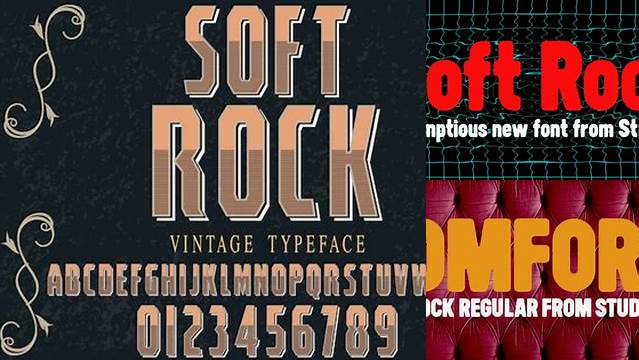
Soft Rock Font: Free Texture Downloads For Designers
Hey guys! Are you on the hunt for that perfect font that screams vintage vibes with a touch of raw, edgy texture? Look no further! Soft rock texture fonts are all the rage right now, blending smooth readability with a gritty, tactile feel. Whether you're designing a poster for a local band, crafting a retro-themed website, or just adding some character to your personal projects, these fonts can really make your work stand out. Plus, who doesn't love free stuff? Let’s dive into the world of soft rock texture fonts and where you can snag them without spending a dime.
1. What Exactly is a Soft Rock Texture Font?
Soft rock texture fonts combine the legibility of classic soft rock-era typography with added textures that give the impression of depth and age. Think of fonts that evoke the spirit of 70s and 80s album covers – smooth curves, rounded edges, but with a twist. The “texture” part comes from distressed effects, grainy overlays, or even simulated hand-drawn imperfections. These elements add visual interest and make the font feel more organic and less sterile. These fonts are versatile and can be used in a variety of design projects, from branding and advertising to web design and print materials. The key is to find a balance between the font's readability and the texture's impact so that the overall design remains clear and engaging. The right soft rock texture font can add a unique and memorable touch to your project, helping it stand out and capture the attention of your target audience. Ultimately, experimenting with different styles and textures will help you find the perfect font to suit your creative vision.
2. Why Choose a Soft Rock Texture Font?
Okay, so why should you even bother with soft rock texture fonts? Well, for starters, they're incredibly versatile. Need a font that feels both modern and vintage? Soft rock textures fonts nail that balance perfectly. They add a touch of nostalgia without feeling dated, making them ideal for projects that aim to evoke a sense of timelessness. Plus, the added texture gives your designs a unique, handcrafted feel, which can be a real game-changer in a world saturated with generic, cookie-cutter fonts. Whether you're working on a retro-themed project or just want to add some character to your designs, these fonts offer a perfect blend of style and substance. The unique texture of these fonts can also help your designs stand out, making them more memorable and engaging for your audience. By choosing a soft rock texture font, you're not just selecting a typeface; you're adding a layer of personality and visual interest to your work. So, if you're looking to elevate your designs and give them a touch of vintage charm, a soft rock texture font might be exactly what you need.
3. Key Characteristics of Soft Rock Fonts
When you are looking for soft rock fonts, there are some key characteristics that you should consider. First, focus on fonts with rounded edges and smooth curves. These features are essential for capturing the soft, approachable feel of the era. Next, pay attention to the texture. Look for fonts that incorporate subtle distressing, grain, or other imperfections that mimic the look of vintage printing techniques. These textures add depth and character to the font, making it feel more authentic and less digitally perfect. Additionally, consider the overall weight and spacing of the font. Soft rock fonts often have a medium weight and generous spacing, which enhances their readability and gives them a relaxed, easygoing vibe. Finally, don't be afraid to experiment with different styles and variations within the soft rock genre. Some fonts may lean more towards a psychedelic or groovy aesthetic, while others may have a more polished and refined appearance. By understanding these key characteristics, you can effectively select and use soft rock fonts to create designs that are both visually appealing and evocative of the iconic music era.
7. Installing Fonts on macOS
Installing soft rock texture fonts on macOS is just as easy as on Windows. Once you've downloaded the font file (again, usually in a ZIP archive), extract the contents to a folder. Find the .ttf or .otf font files. To install, simply double-click on the font file. This will open Font Book, macOS's built-in font management application. Font Book will show you a preview of the font and give you the option to install it. Just click the "Install Font" button, and the font will be installed and ready to use. Another way to install fonts on macOS is to drag and drop the font files directly into the Font Book application. This method works for both individual font files and multiple fonts at once. Once the font is installed, it will be available in all your applications. If you don't see the font right away, try restarting the application or your computer. This will ensure that the font list is updated and the new font is recognized. Installing fonts on macOS is a quick and easy way to add new typographic options to your creative toolkit.
8. Using Soft Rock Fonts in Adobe Photoshop
Photoshop is a great tool for using soft rock texture fonts. First, make sure the font is installed on your system (see the instructions above for Windows and macOS). Once installed, open Photoshop and create a new document or open an existing one. Select the Type tool (the “T” icon) and click on your canvas to create a text layer. In the options bar at the top of the screen, you'll see a font selection dropdown menu. Click on this menu and scroll through the list to find your newly installed soft rock texture font. Select the font, and start typing! You can adjust the font size, color, and other properties in the Character panel (Window > Character). To further enhance the texture of the font, you can add layer styles like Drop Shadow, Inner Shadow, or Bevel & Emboss. These effects can add depth and dimension to the font, making it look even more realistic. Experiment with different layer styles and settings to achieve the desired look. Using soft rock texture fonts in Photoshop can add a unique and vintage touch to your designs, helping them stand out and capture the attention of your audience.
9. Incorporating Fonts in Adobe Illustrator
Illustrator is another fantastic tool for working with soft rock texture fonts. The process is similar to Photoshop. Ensure your font is installed on your computer. Open Illustrator and create a new document or open an existing one. Select the Type tool and click on your artboard to create a text area. In the Character panel (Window > Type > Character), you can select your installed soft rock texture font from the font dropdown menu. Type your text, and adjust the font size, color, and other properties as needed. One of the great things about Illustrator is its ability to vectorize text. This means you can convert your text into editable outlines, allowing you to manipulate the individual letters and create custom shapes. To do this, select your text object and go to Type > Create Outlines. This will convert the text into a group of vector shapes that you can edit using the Direct Selection tool. You can also add effects to the text, such as Drop Shadow, Glow, or Roughen, to further enhance the texture and vintage feel of the font. Illustrator provides a wide range of tools and options for working with text, making it a great choice for creating typographic designs with soft rock texture fonts.
So there you have it! A deep dive into the world of soft rock texture fonts and how to use them to make your designs rock (pun intended!). Now go forth and create something awesome!